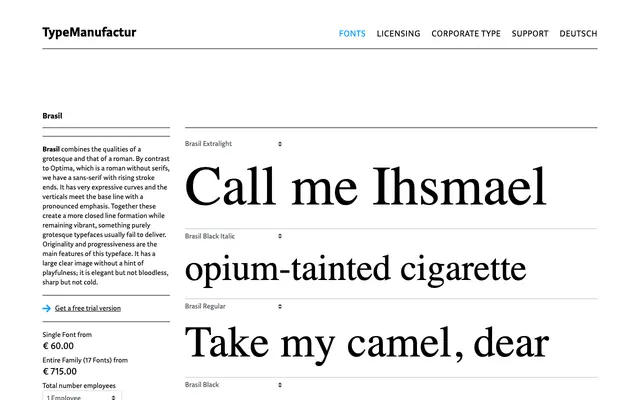
A six-weight serif family from Typemanufactur with small caps throughout and a full italic, suited to long-form editorial and book work.
Seventeen styles covering six weights from Extralight to Black, each with italic and small caps variants except Black which carries italic alone. The family is built around sustained reading, with small caps integrated at every weight for a level of typographic refinement rarely offered below the heavier cuts. Works well in literary, magazine and book contexts where weight contrast and classical forms are expected.
Brasil presents classical serif proportions with small caps and a full italic across a wide weight range, placing it firmly in the transitional serif tradition suited to text and editorial use.